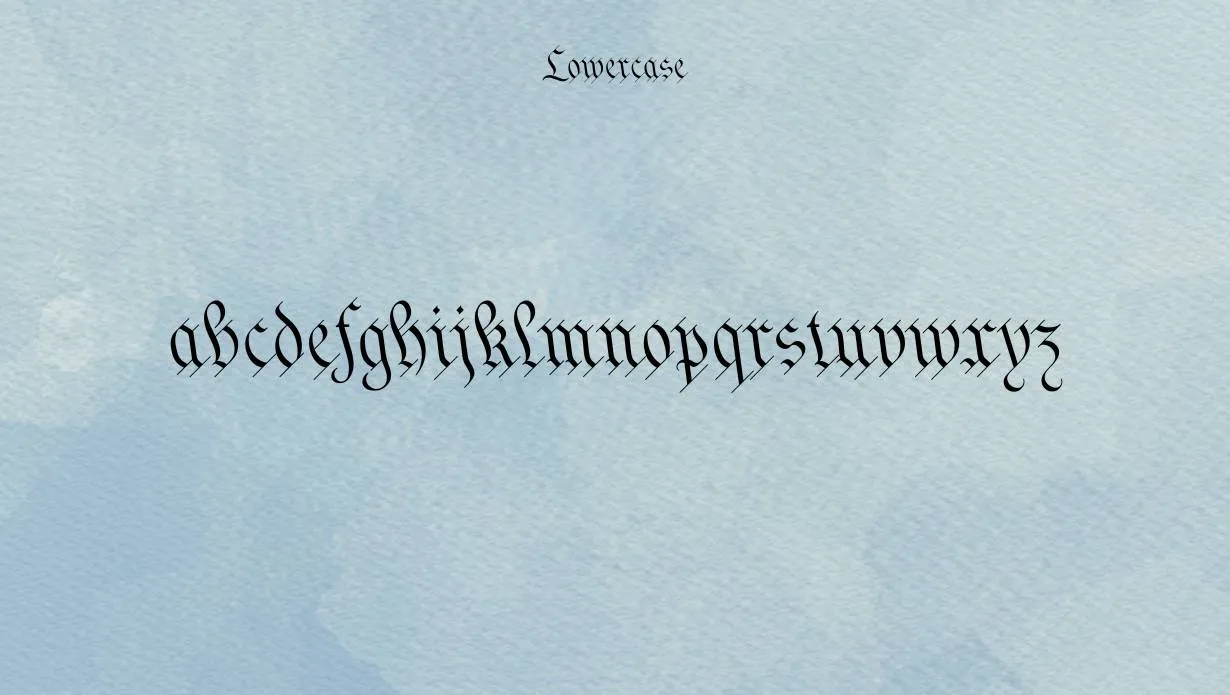
Let’s introduce to you a stylish font named We The People Font belongs to the Gothic font family that was developed by K-Type in 2021.
This typeface is motivated by the calligraphy of the handwritten US Constitution Preamble. It is established on the German Text and Square Text with innovation from Bickham’s popular publication “The Universal Penman”.
| Name | We The People Font |
| Designer | K-Type |
| Style | Gothic |